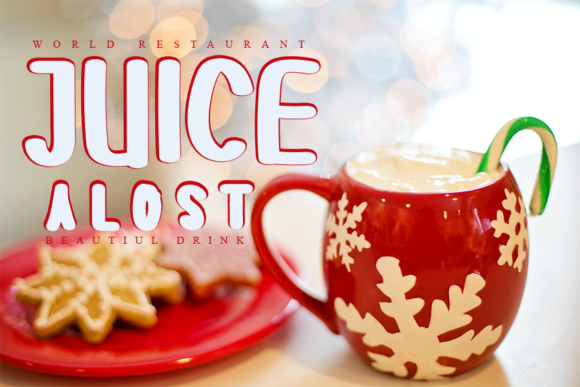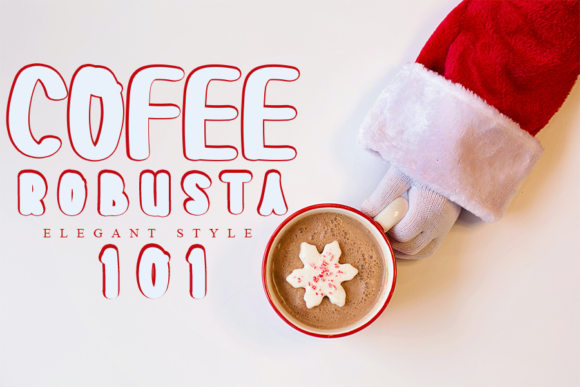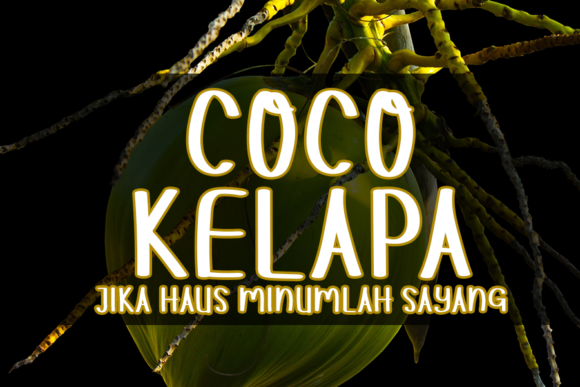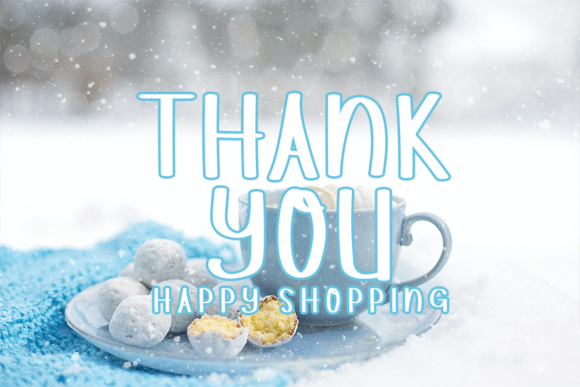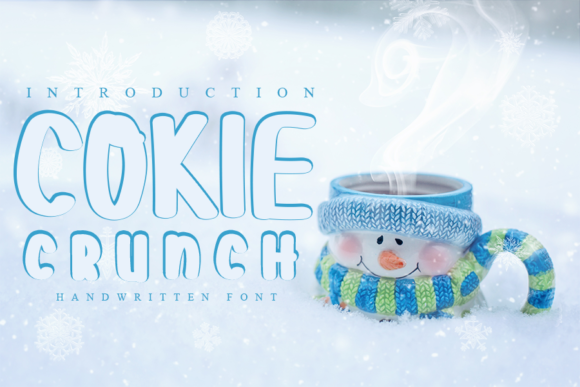
Cokie Crunch Font: The Ultimate Choice for Friendly and Creative Designs
Are you on the hunt for a font that can add a touch of warmth and friendliness to your designs? Look no further than the Cokie Crunch Font! This adorable handwritten font is perfect for designers and crafters who want to create stunning visuals that exude a sense of approachability and playfulness. In this article, we’ll dive into the world of Cokie Crunch Font and explore its features, benefits, and uses.
What is Cokie Crunch Font?
Cokie Crunch Font is a cute and casual handwritten font that boasts an incredibly friendly feel. Its unique and charming lettering style makes it perfect for a wide range of design projects, from social media graphics and Instagram posts to DIY crafts and calligraphy scripts. This font is designed to turn any creative idea into a true piece of art, making it a must-have for designers and crafters alike.
Key Features of Cokie Crunch Font
• Cute and Casual: Cokie Crunch Font features a playful and informal lettering style that’s perfect for designs that require a friendly touch.
• Handwritten with Love: This font is carefully crafted to mimic the look and feel of handwritten text, making each letter and word unique and special.
• Versatile: Cokie Crunch Font can be used for a wide range of design projects, from digital graphics to print materials and DIY crafts.
• Easily Readable: Despite its playful nature, Cokie Crunch Font is easy to read and understand, making it perfect for designs that require a clear and concise message.
Benefits of Using Cokie Crunch Font
So, why should you choose Cokie Crunch Font for your next design project? Here are just a few benefits of using this amazing font:
• Adds a Personal Touch: Cokie Crunch Font can add a personal and human touch to your designs, making them more relatable and engaging.
• Perfect for Social Media: This font is ideal for social media graphics, Instagram posts, and other online content that requires a friendly and approachable tone.
• Great for DIY Projects: Cokie Crunch Font is perfect for DIY crafts, calligraphy scripts, and other handmade projects that require a personal touch.
Uses of Cokie Crunch Font
Cokie Crunch Font is a versatile font that can be used for a wide range of design projects, including:
• Social Media Graphics: Use Cokie Crunch Font to create stunning social media graphics that grab attention and engage your audience.
• Instagram Posts: Add a touch of personality to your Instagram posts with Cokie Crunch Font, perfect for quotes, stories, and more.
• DIY Crafts: Use Cokie Crunch Font for calligraphy scripts, handmade cards, and other DIY projects that require a personal touch.
• Print Materials: This font is also great for print materials, such as brochures, flyers, and posters, that require a friendly and approachable tone.
In conclusion, Cokie Crunch Font is a must-have for designers and crafters who want to add a touch of warmth and friendliness to their designs. With its cute and casual lettering style, versatility, and ease of use, this font is perfect for a wide range of design projects, from social media graphics to DIY crafts. So why wait? Get creative with Cokie Crunch Font today and turn your design ideas into stunning works of art!